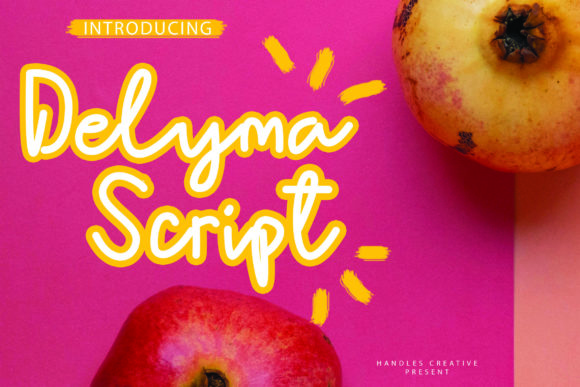
Indulge in the captivating allure of Delyma, a script font that dances across your screen with grace and charm. Its delicate strokes and whimsical curves evoke a sense of timeless elegance, making it the perfect choice for adding a touch of sophistication to any design.
Step into a world of creative possibilities with Delyma. Its versatility knows no bounds, lending itself effortlessly to wedding invitations, heartfelt thank-you cards, thought-provoking quotes, and warm greeting cards. Whether you're crafting a personal logo or designing a professional business card, Delyma's enchanting presence will elevate your creations to new heights.
With each letterform meticulously designed by the skilled hands of Handles Creative, Delyma embodies the essence of handwritten beauty. Its flowing lines and subtle flourishes mimic the natural rhythm of pen on paper, adding a touch of warmth and intimacy to your designs.
Imagine your words dancing across the page, imbued with the charm and elegance of Delyma. Its graceful curves will guide your readers' eyes through your message with ease, creating an immersive and unforgettable experience.
Delyma is not merely a font; it is an invitation to unleash your creativity and make a lasting impression. Its versatility and timeless appeal make it the perfect choice for designers, crafters, and anyone seeking to add a touch of sophistication to their creations.
So why settle for ordinary fonts when you can embrace the extraordinary allure of Delyma? Let its enchanting strokes captivate your audience and leave an enduring mark on their hearts.
Indulge in the beauty of Delyma today and experience the transformative power of a truly exceptional script font.